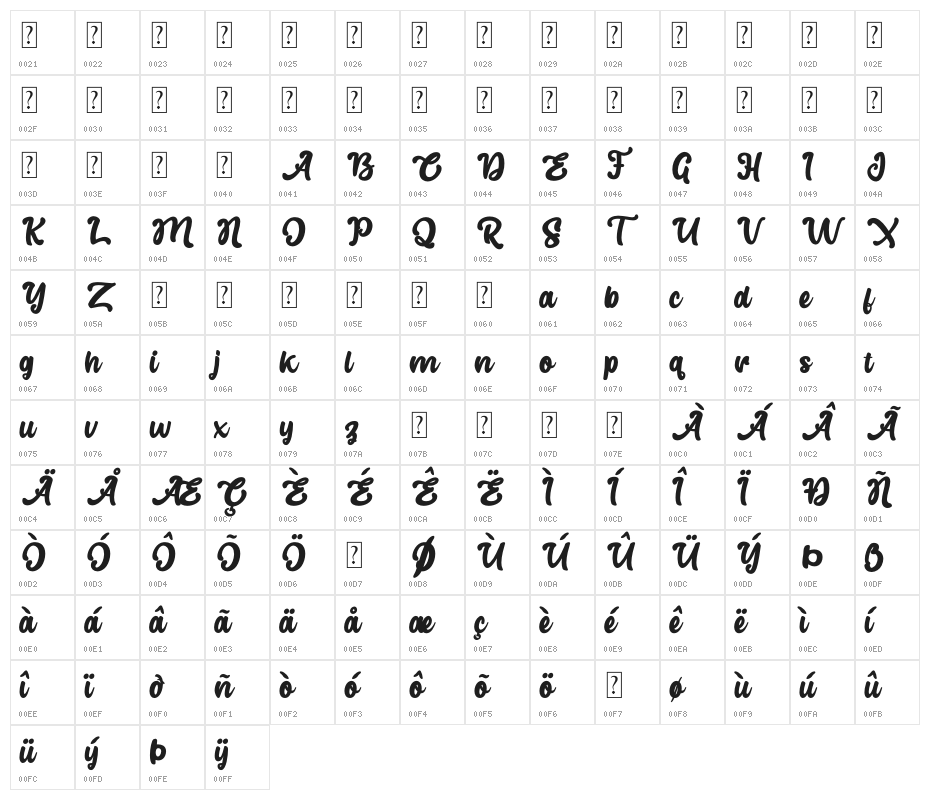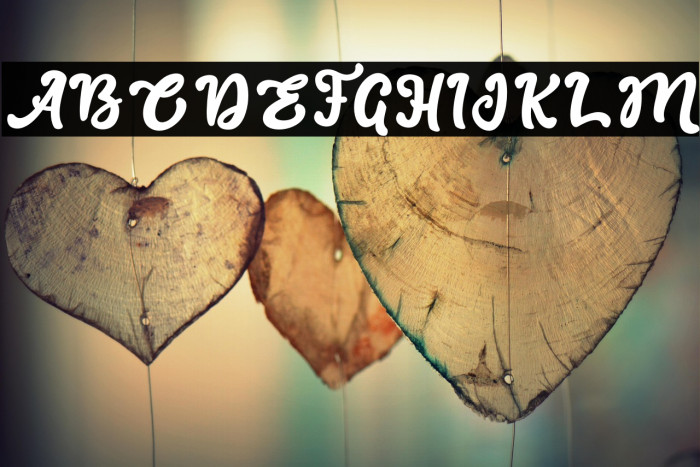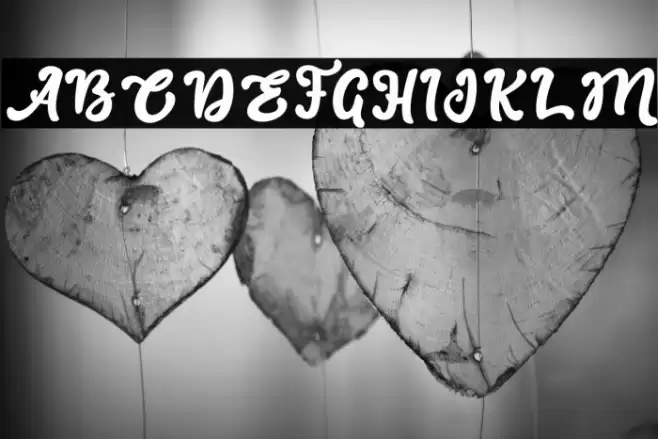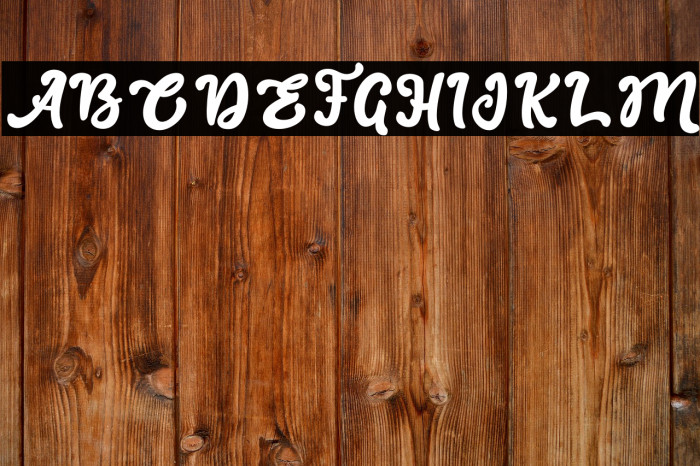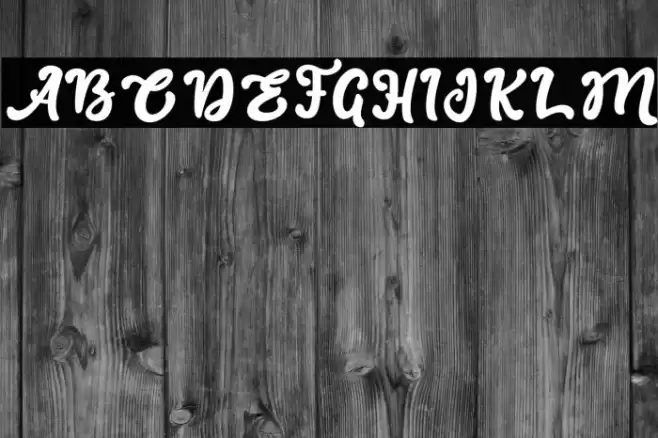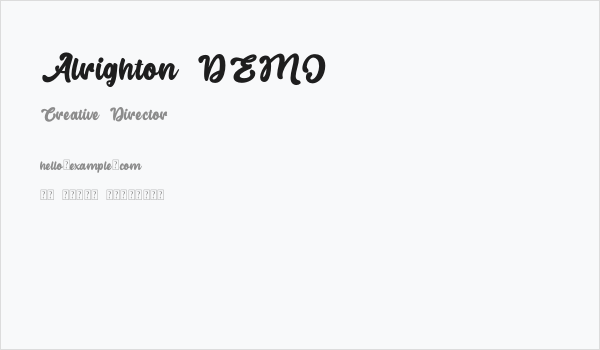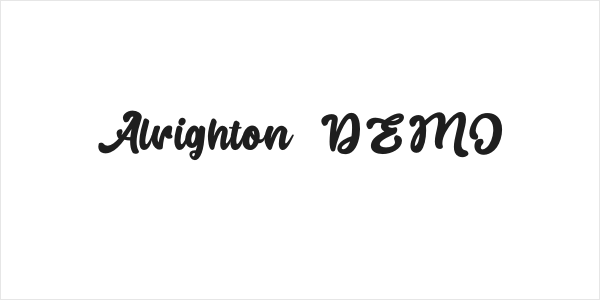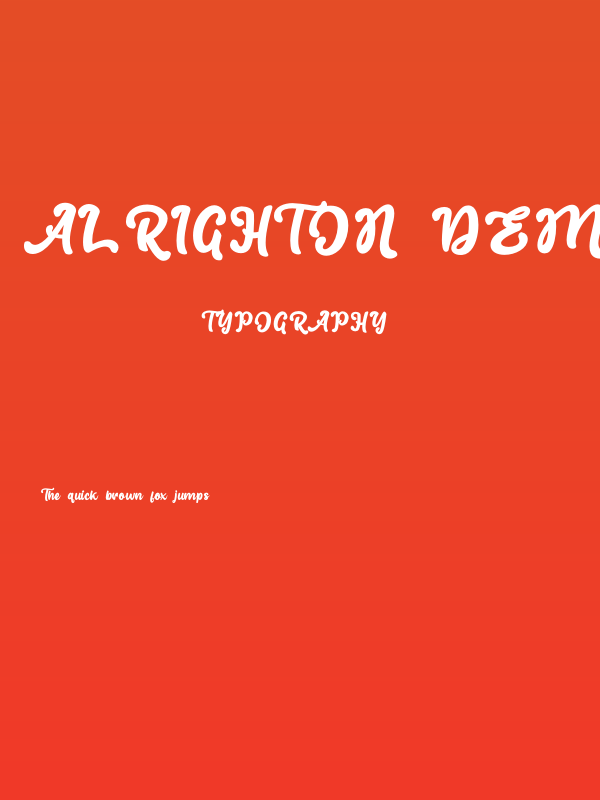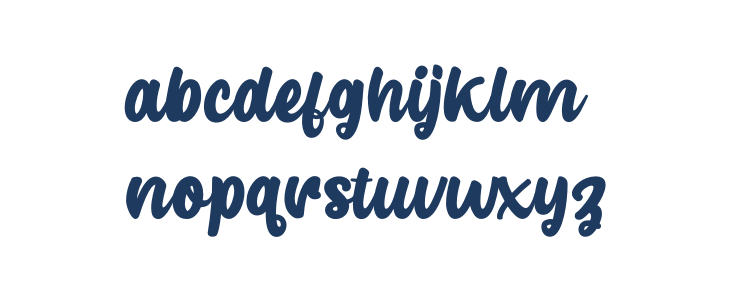
Alrighton DEMO Font
Alrighton DEMO Description
This font features a bold, flowing script style with a playful and dynamic appearance. The uppercase letters are elegantly curved, with a consistent stroke width that adds to its boldness. The lowercase letters maintain the same fluidity, with some characters featuring distinctive loops and swashes that enhance its decorative appeal. The font's overall design is cohesive, with a sense of movement that makes it stand out. The spacing between characters is tight, which contributes to its compact and impactful look. This font is well-suited for projects that require a touch of elegance and creativity.
Use CaseLogos, Headlines, Invitations
Proposed ProjectsIdeal for branding, invitations, greeting cards, and creative projects that require a touch of elegance and flair.